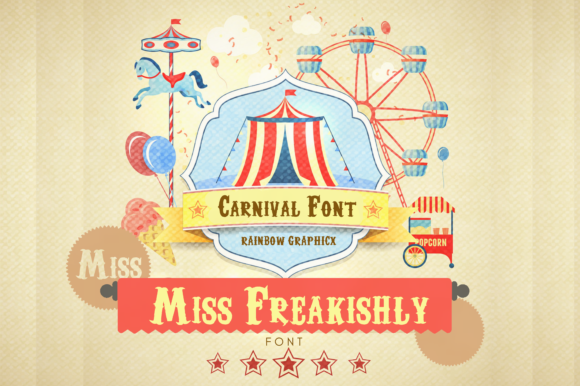
Behold, Miss Freakishly, a vintage serif font that commands attention with its bold and captivating curves, reminiscent of a magical circus or carnival, unraveling a world of wonder and excitement. Crafted with meticulous detail by RainbowGraphicx, this extraordinary font promises to transform your designs into captivating spectacles.
Adorned with elegant serifs and unexpected flourishes, Miss Freakishly exudes a timeless charm, inviting you on an enchanting journey through the realms of imagination. Whether you're conjuring whimsical posters, crafting spellbinding invitations, or designing enchanting logos, let Miss Freakishly be your trusted companion, guiding you towards creative triumphs.
Step into the realm of the extraordinary, where Miss Freakishly's versatility knows no bounds. Its enchanting characters dance across your screen, bringing life to your most daring design endeavors. With Miss Freakishly, you'll unveil a font that captivates audiences, ignites conversations, and leaves an indelible mark on their minds.
Unleash your creativity and embark on a journey of endless possibilities, where your imagination takes center stage. Miss Freakishly awaits, ready to elevate your designs to new heights of wonder and awe. Embrace its allure, let your artistic vision soar, and experience the transformative power of this captivating font.